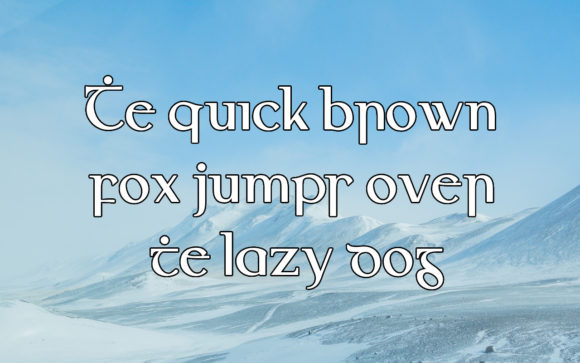
Gaeilge Font: Elevate Your Designs with a Creative and Cool Serif Font
Are you a designer or crafter looking for a unique and versatile font to take your creative projects to the next level? Look no further than the Gaeilge font, a stunning serif font designed by Peter Wiegel. With its well-balanced characters and distinctive style, Gaeilge is the perfect addition to any design, from elegant branding and advertising to beautiful crafting and DIY projects.
What Makes Gaeilge Font So Special?
Gaeilge is more than just a font – it’s a design statement. Its creative and cool serif style sets it apart from more traditional fonts, giving your designs a fresh and modern look that’s sure to turn heads. The font’s unique characters are carefully crafted to be well-balanced and visually appealing, making it easy to use in a wide range of design applications.
One of the standout features of Gaeilge is its versatility. Whether you’re designing a logo, creating a brochure, or crafting a beautiful handmade card, this font adapts effortlessly to any design style. Its classic serif lines evoke a sense of tradition and sophistication, while its modern twists and unique character details keep it feeling fresh and contemporary.
Here are just a few ideas for using Gaeilge in your designs:
- Branding and Logo Design: Use Gaeilge to create a unique and memorable logo that sets your brand apart.
- Advertising and Marketing: Add a touch of elegance and sophistication to your ad campaigns with Gaeilge’s classic serif style.
- Crafting and DIY: Use Gaeilge to add a personal touch to your handmade crafts, from cards and invitations to scrapbooking and journaling.
- Digital Design: Use Gaeilge in your digital designs, from social media graphics to website headers and more.
Why Choose Gaeilge Font?
So why choose Gaeilge over other fonts? Here are just a few reasons:
- Unique Style: Gaeilge’s distinctive serif style sets it apart from more traditional fonts.
- Versatility: Use Gaeilge in a wide range of design applications, from digital projects to print materials.
- High-Quality Design: Gaeilge is designed to the highest standards, with careful attention to detail and a focus on aesthetics.
If you’re looking for a creative and cool serif font to elevate your designs, look no further than Gaeilge. With its unique style, versatility, and high-quality design, Gaeilge is the perfect addition to any design toolkit. Whether you’re a designer, crafter, or DIY enthusiast, Gaeilge is sure to inspire your creativity and help you bring your ideas to life.
Author: Peter Wiegel
Font Information: Gaeilge is a creative and cool serif font designed by Peter Wiegel. It is available for download and use in a wide range of design applications.